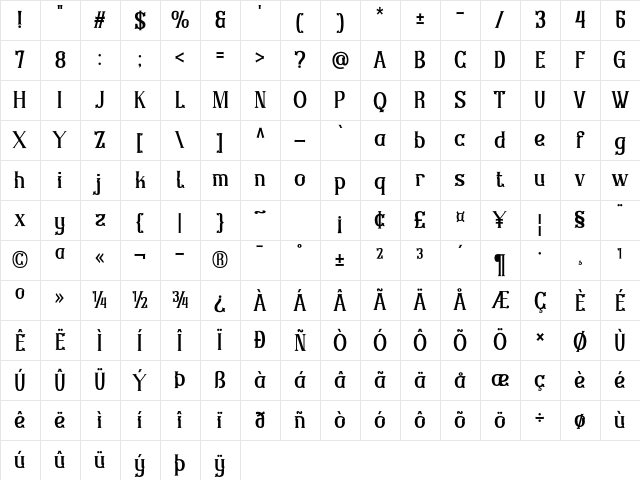
Gafinethtrial Regular Free Font
Gafinethtrial Regular
Foundry: twinletter
Designer: HAKIM
Design Context for Gafinethtrial
Gafinethtrial is a composed and adaptable typeface that performs quietly and consistently across a wide range of design contexts.